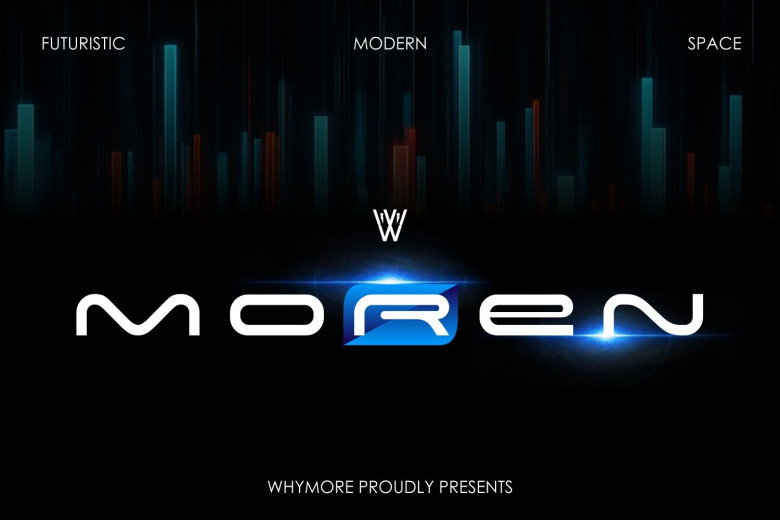
Moren Font
Moren is a smooth, trendy futuristic typeface which fits well into the current generation designs and technologies, sci-fi. Due to its geometric, minimalist sans-serif style it is ideal for logos, websites, and branding.
Moren Sans Serif Font